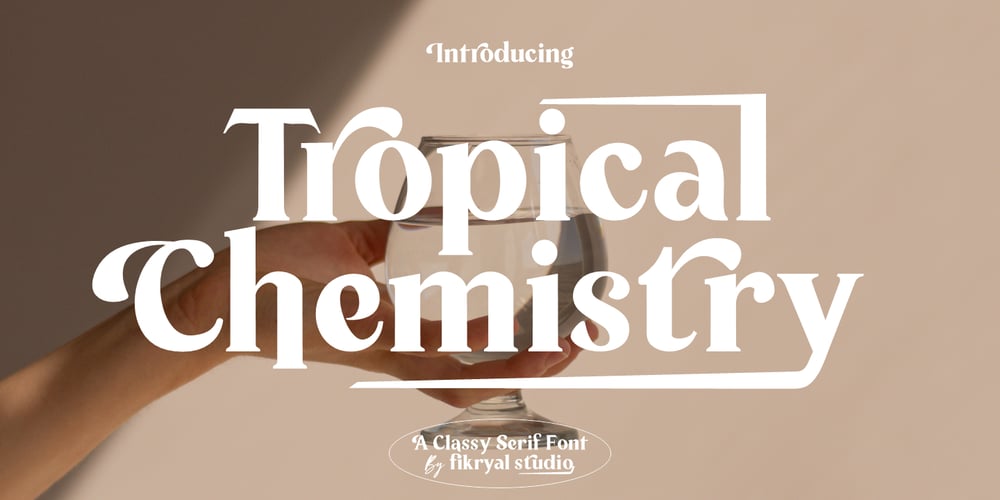
Tropical Chemistry Font Family was designed by Muhammad Fikry and published by Fikryal. Tropical Chemistry contains 1 styles and family package options. Introducing Tropical Chemistry – Modern Serif font with many alternates and washes. This font is very suitable to be applied in various aspects of design, Also it’s perfect for logos, branding, title, social media posts, advertisements, product packaging, product designs, label, photography, watermark, special event, magazine, web designs, etc.Features :Tropical Chemistry (Uppercase, Lowercase)AlternatesSwashesLigaturesMultilingual Support, including Latin, Western Europe, Central/Eastern Europe, Baltic, Turkis, Romanian, etc.If you have any questions please don’t hesitate to contact mefollow my Instagram: @fkryallThank you